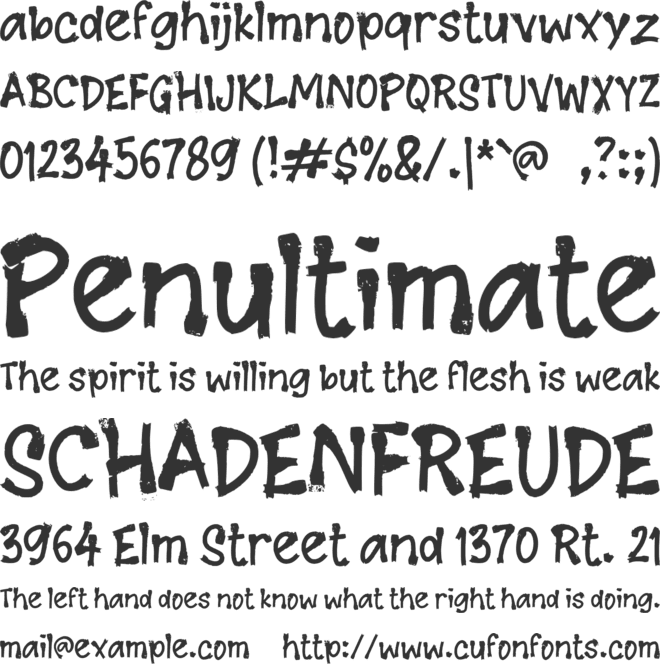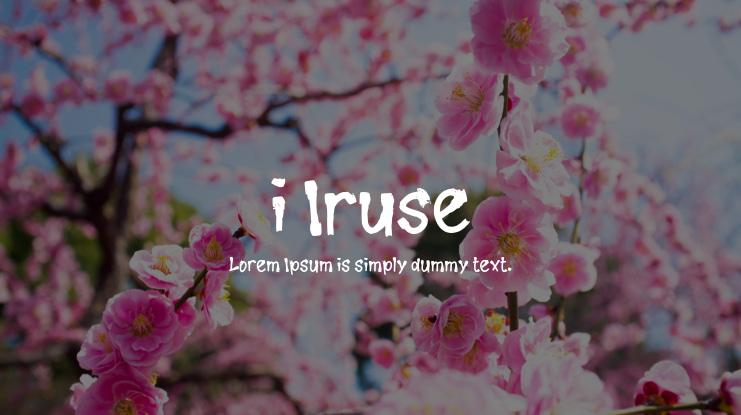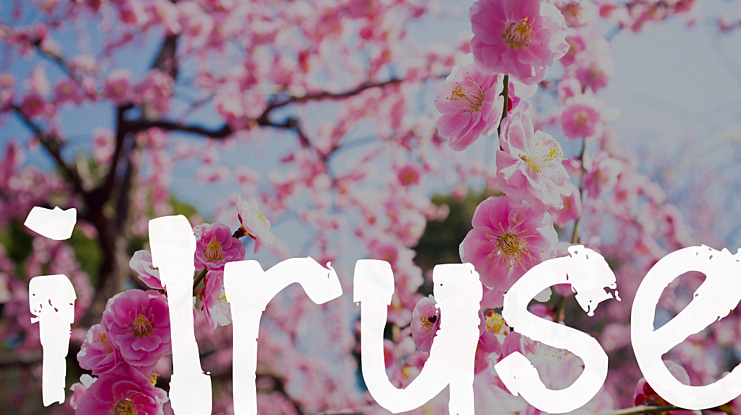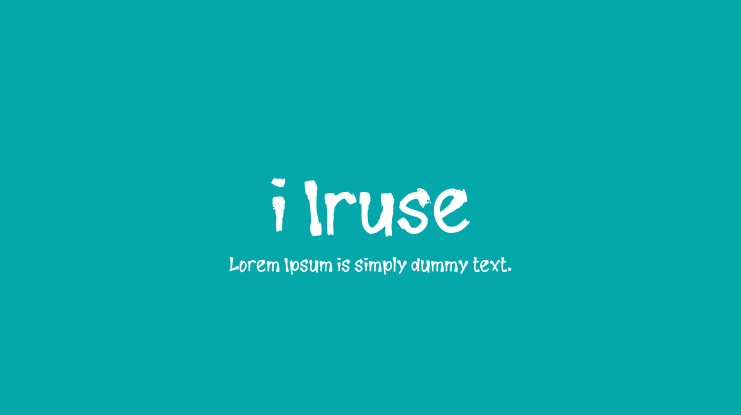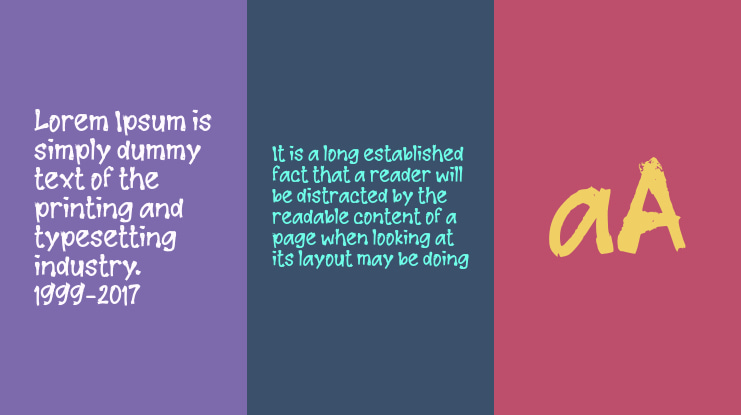
i Iruse Font
Introducing Iruse, the new innovative font.
If you're looking for a unique and stylish font, look no further than Iruse. With its sleek design and modern appeal, Iruse is perfect for a wide range of projects, from branding and logo design to web and print materials.
i Iruse font preview